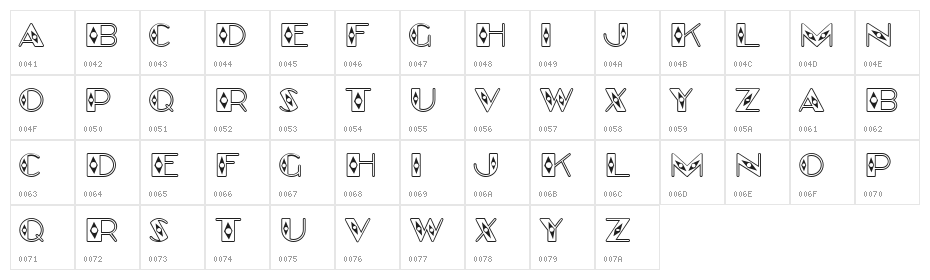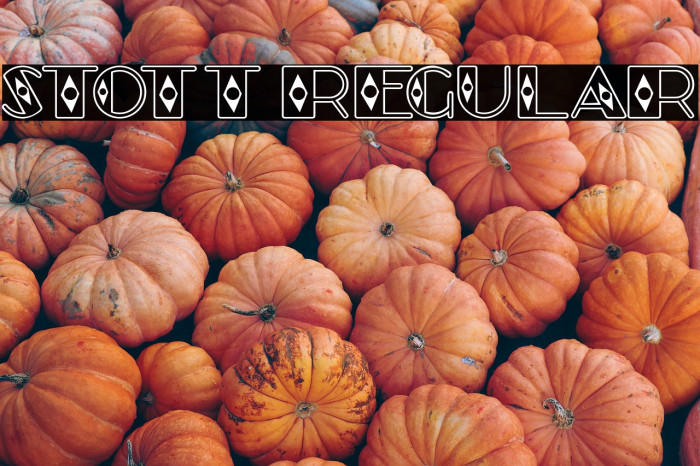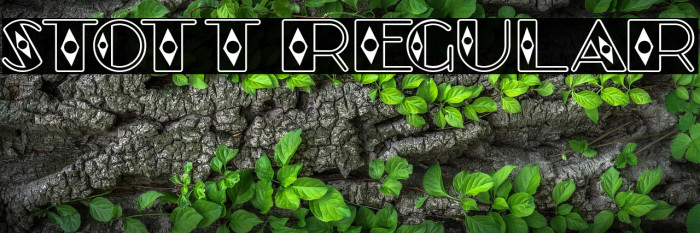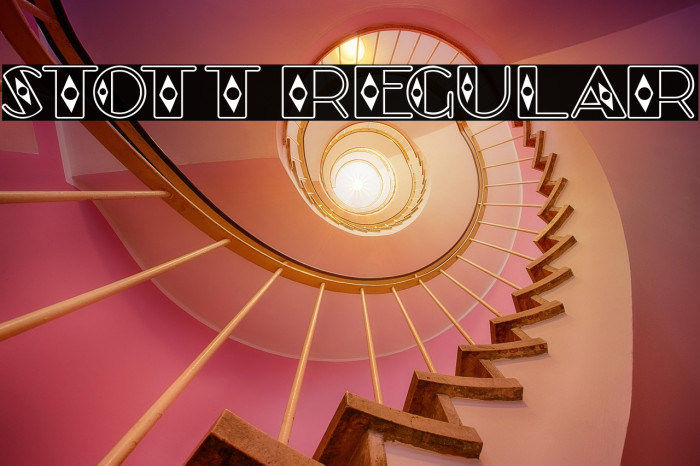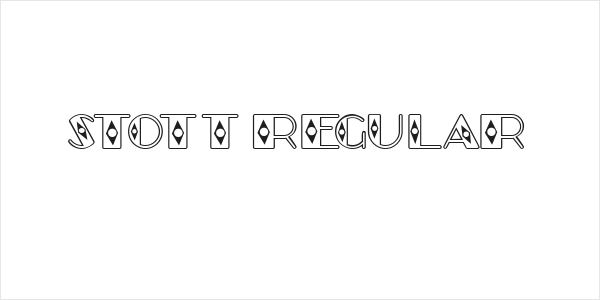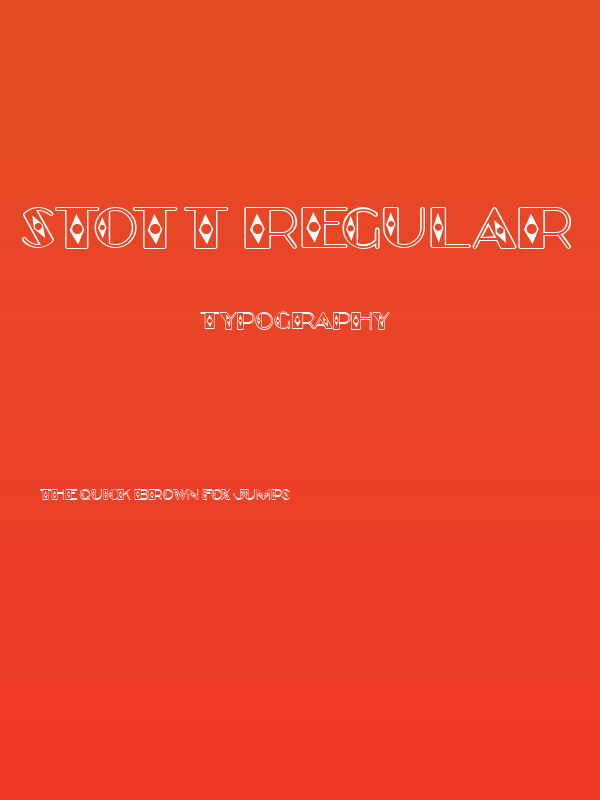
Stott Regular Font
Stott Regular Description
This font features a unique and decorative style with geometric elements incorporated into each character. The letters are outlined, with diamond-shaped cutouts adding an ornamental touch. The design is consistent across both uppercase and lowercase letters, creating a cohesive and artistic appearance. The font's bold outlines and intricate details make it stand out, ideal for creative and eye-catching designs. Its distinct style is suitable for projects that require a touch of elegance and creativity.
| Proposed Projects | Ideal for branding, posters, invitations, and artistic projects that require a decorative touch. |